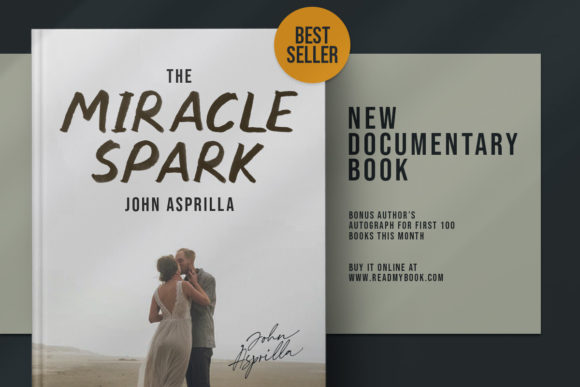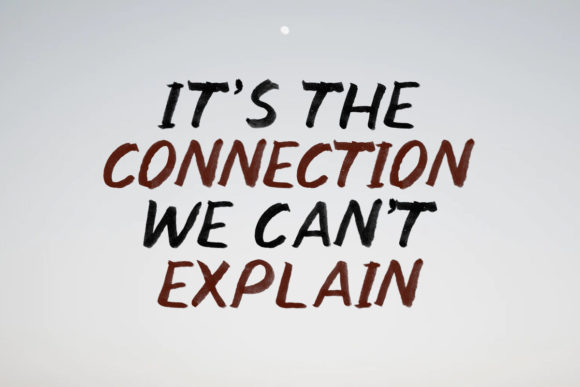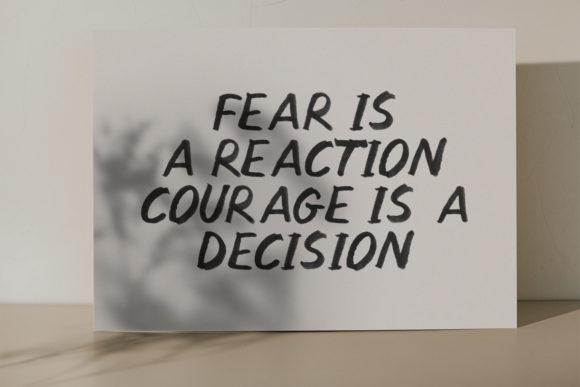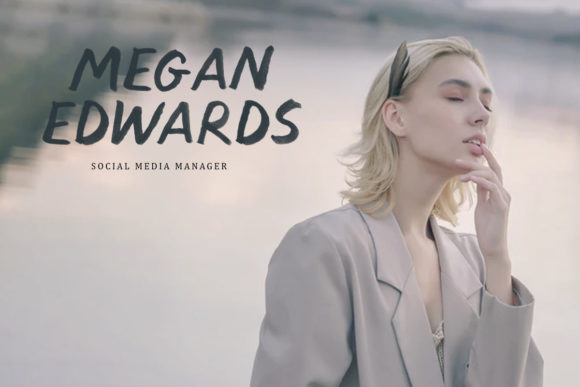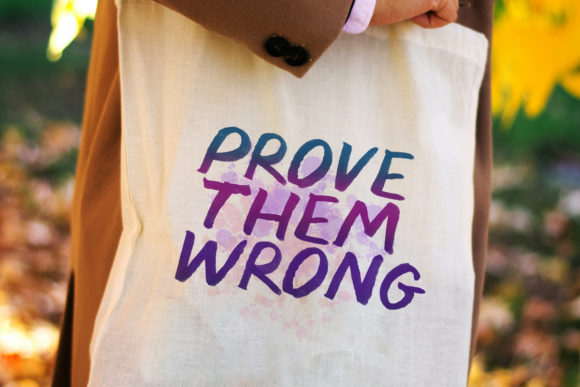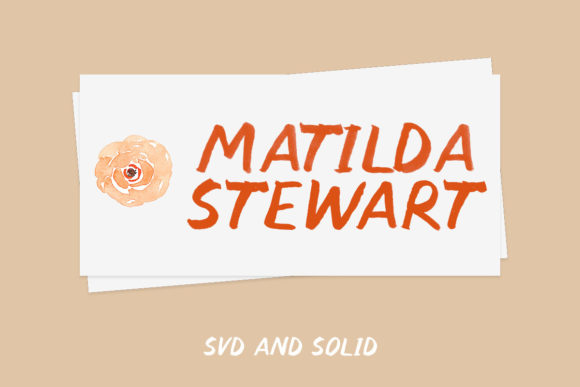
Introducing the Divine Stone Font: A Brush Display Font with a Watercolor Twist
Are you tired of using the same old fonts for your designs? Look no further! The Divine Stone Font is a game-changer for designers and crafters looking for a unique and eye-catching font to elevate their projects. This brush display font boasts a one-of-a-kind shape with a beautiful watercolor brush effect, making it perfect for fresh and playful theme designs.
What Makes Divine Stone Font So Special?
The Divine Stone Font is not just another font – it’s an experience. Its distinctive watercolor brush effect gives it a hand-painted look that’s both whimsical and sophisticated. This font is perfect for designers who want to add a touch of elegance and playfulness to their work. Whether you’re creating invitations, labels, logos, or magazines, the Divine Stone Font is sure to make your project stand out.
The versatility of the Divine Stone Font is one of its most appealing features. This font can be used for a wide range of design projects, including:
- Invitations: Make your party invitations, wedding invites, or baby shower announcements truly special with this beautiful font.
- Labels: Create custom labels for your products, gifts, or storage containers with a personal touch.
- Logos: Give your brand a unique identity with a custom logo designed using the Divine Stone Font.
- Magazines and Books: Add a touch of elegance to your publications with this stunning font.
- Greeting and Wedding Cards: Create beautiful, one-of-a-kind cards for special occasions.
- Packaging: Make your product packaging stand out on store shelves with custom labels and designs.
- Fashion and Make-up: Use the Divine Stone Font to create stunning branding materials for your fashion or make-up business.
- Stationery: Elevate your stationery game with custom notebooks, journals, or letterheads.
- Novels and Labels: Use this font to create beautiful book covers or custom labels for your literary projects.
Why Choose Divine Stone Font?
With so many fonts available, why choose the Divine Stone Font? Here are just a few reasons:
- Unique Design: The watercolor brush effect gives this font a one-of-a-kind look that’s sure to turn heads.
- Versatility: Use this font for a wide range of design projects, from invitations to packaging.
- Elegance and Playfulness: The Divine Stone Font strikes the perfect balance between sophistication and playfulness.
Tips for Using Divine Stone Font
To get the most out of the Divine Stone Font, here are a few tips:
- Experiment with Colors: The watercolor effect looks stunning with bold, bright colors. Don’t be afraid to experiment and find the perfect hue for your design.
- Mix and Match: Combine the Divine Stone Font with other fonts or design elements to create a unique look.
- Pay Attention to Size: This font looks best when used at larger sizes, such as headings or titles.
The Divine Stone Font is a game-changer for designers and crafters looking to elevate their projects with a unique and eye-catching font. With its beautiful watercolor brush effect and versatility, this font is perfect for a wide range of design projects. Whether you’re a seasoned designer or just starting out, the Divine Stone Font is sure to inspire your creativity and take your designs to the next level.